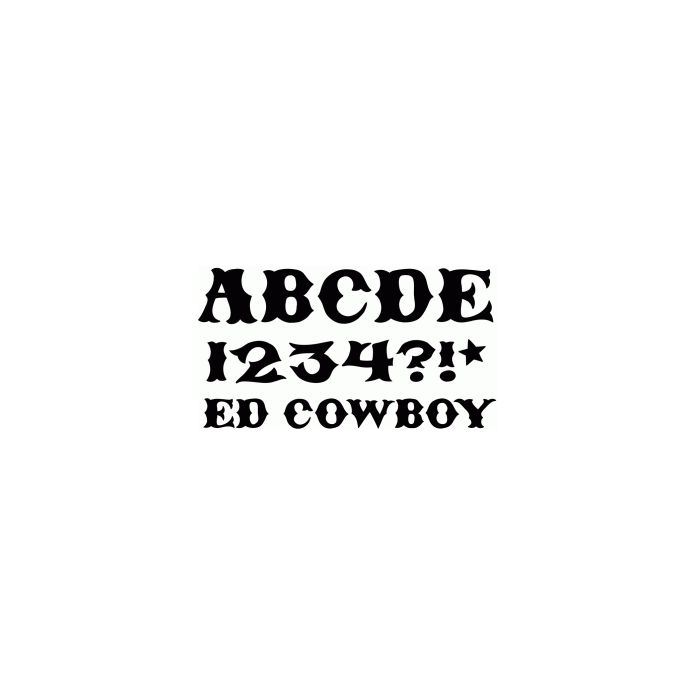
Fun decorative cowboy western inspired font with a handcrafted feel. This font has a complete set of uppercase letters, numbers, and basic punctuation.